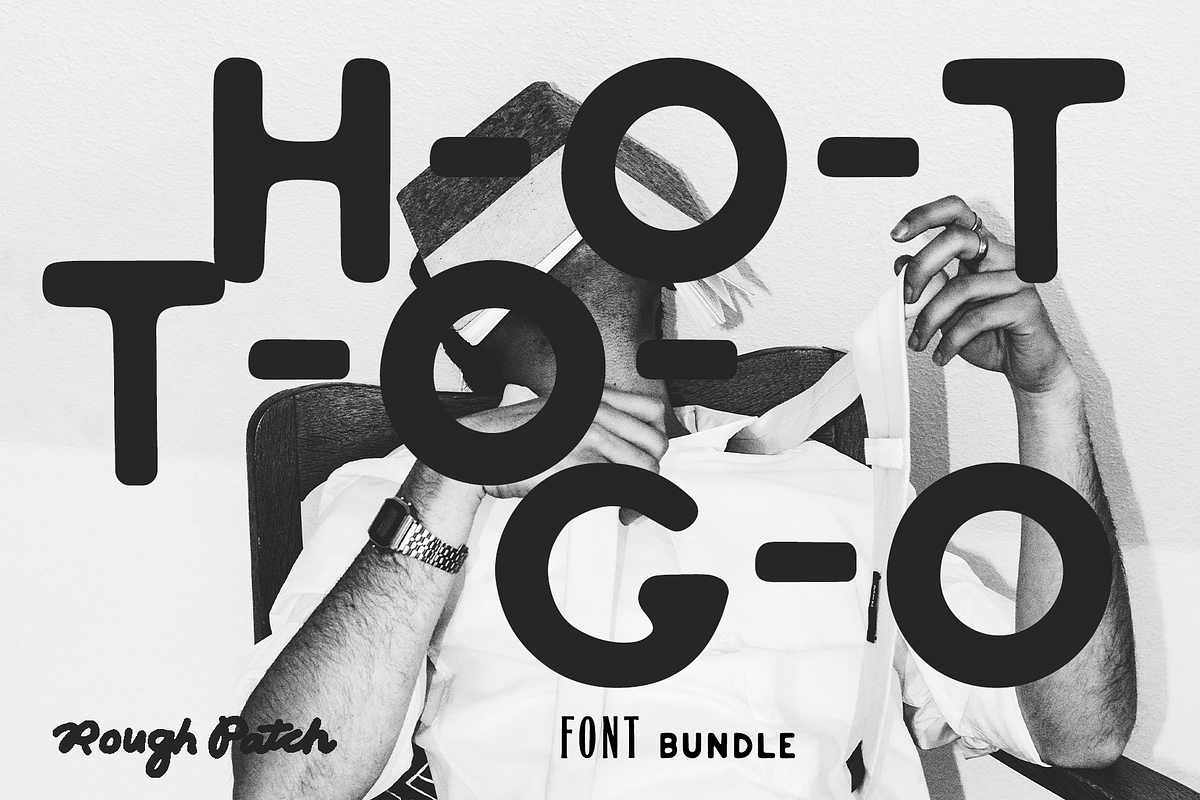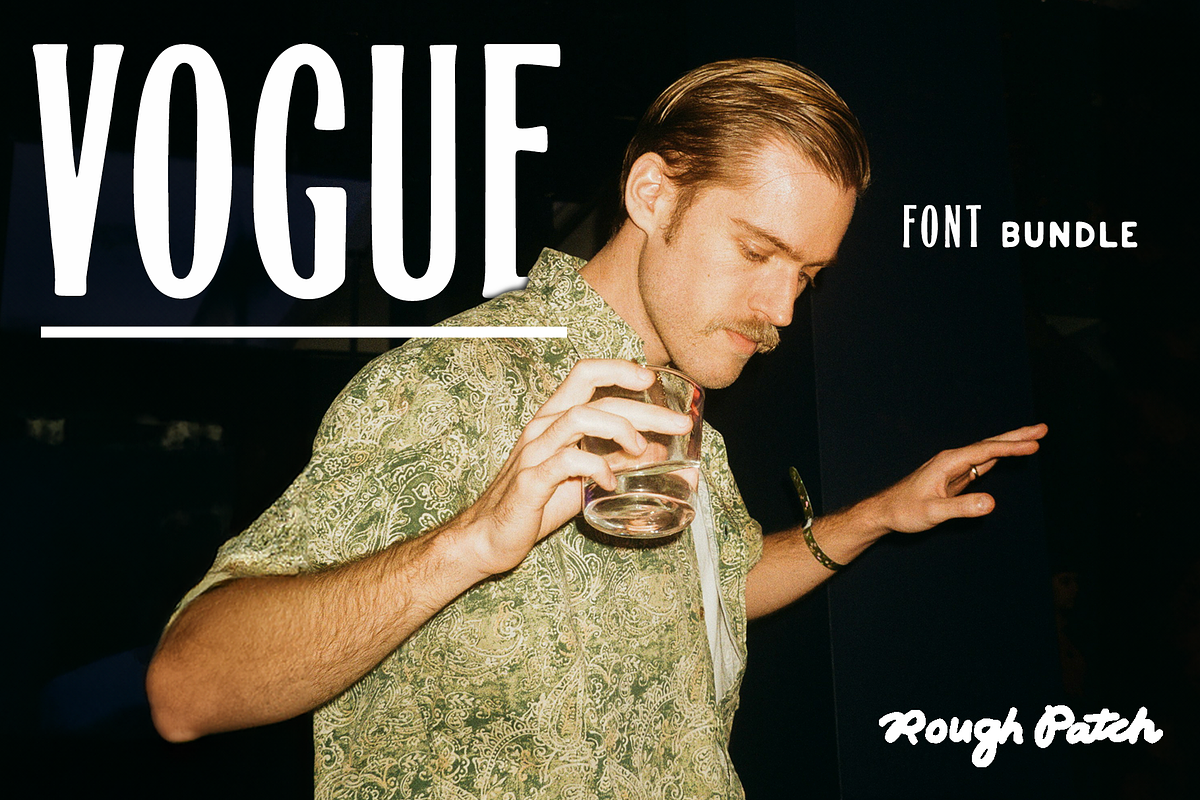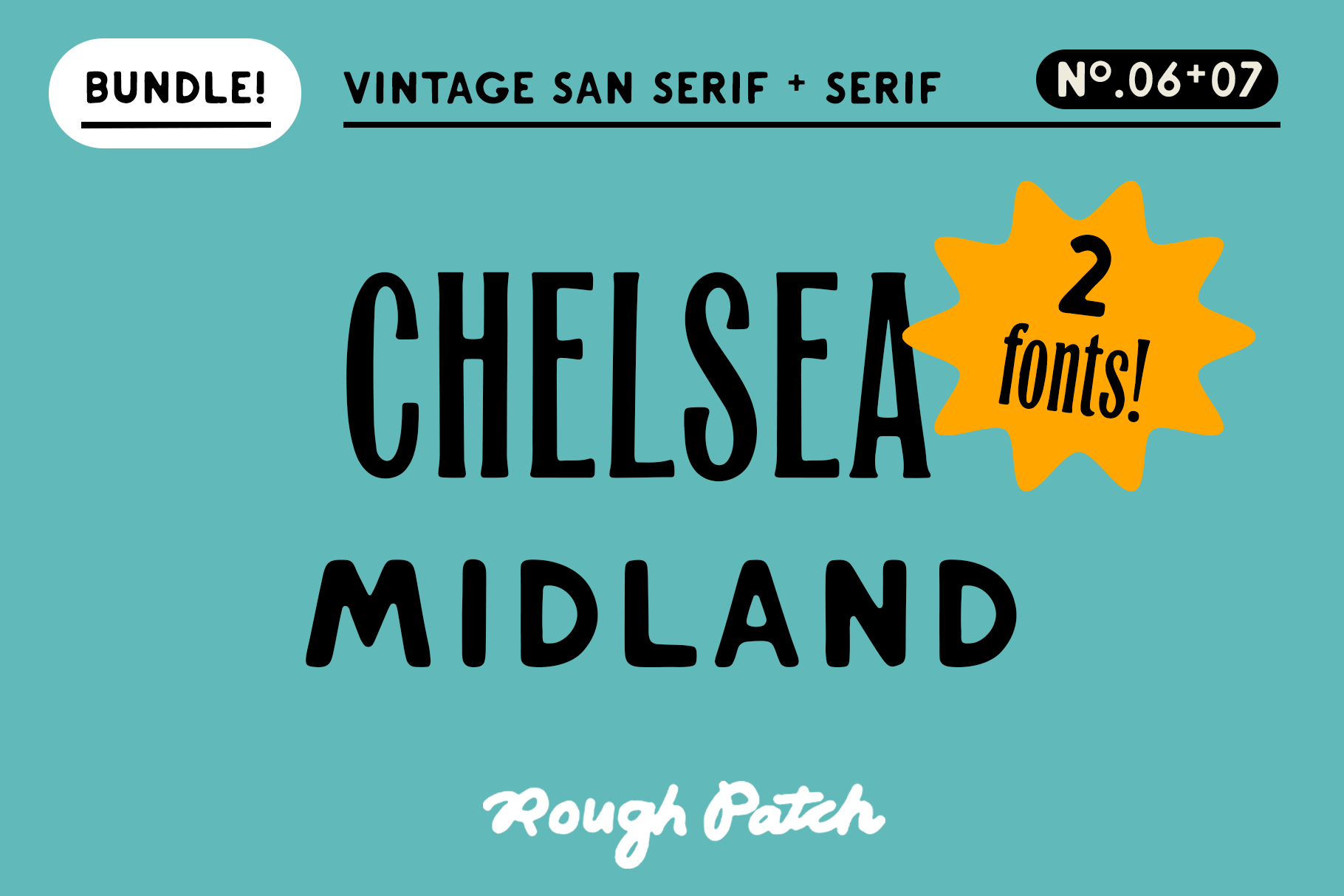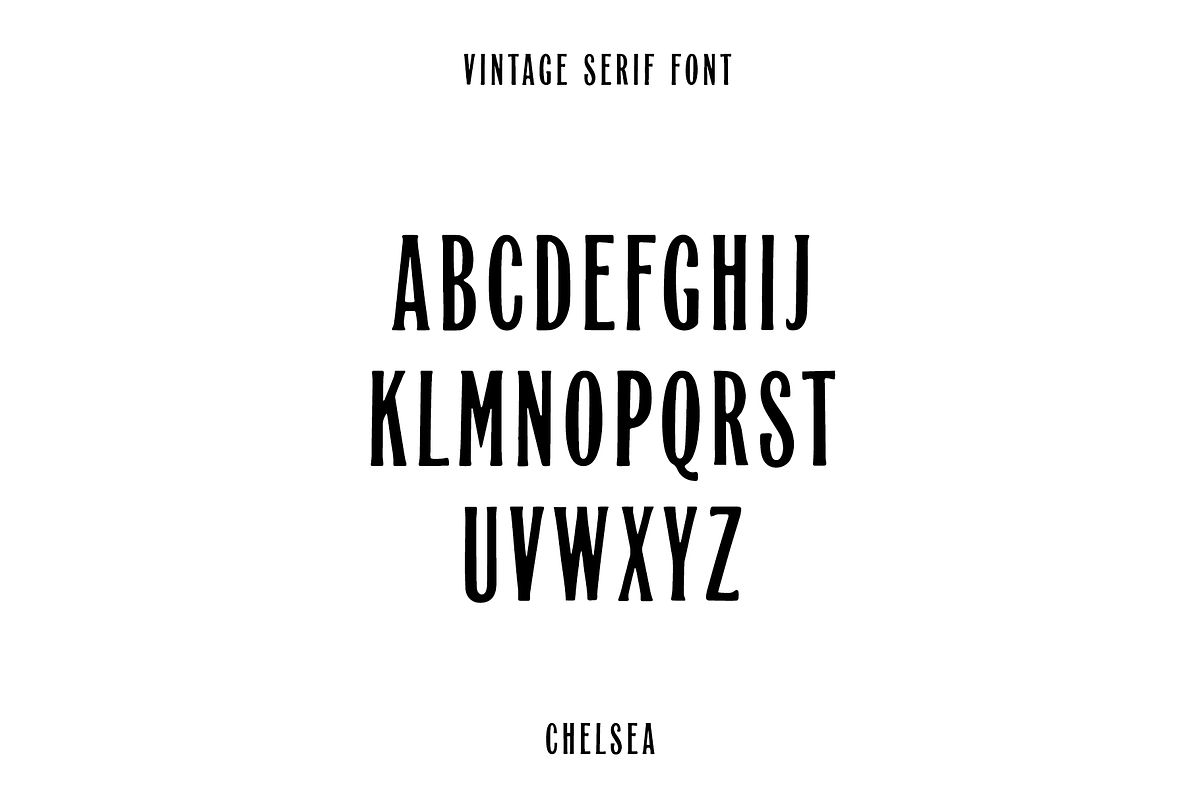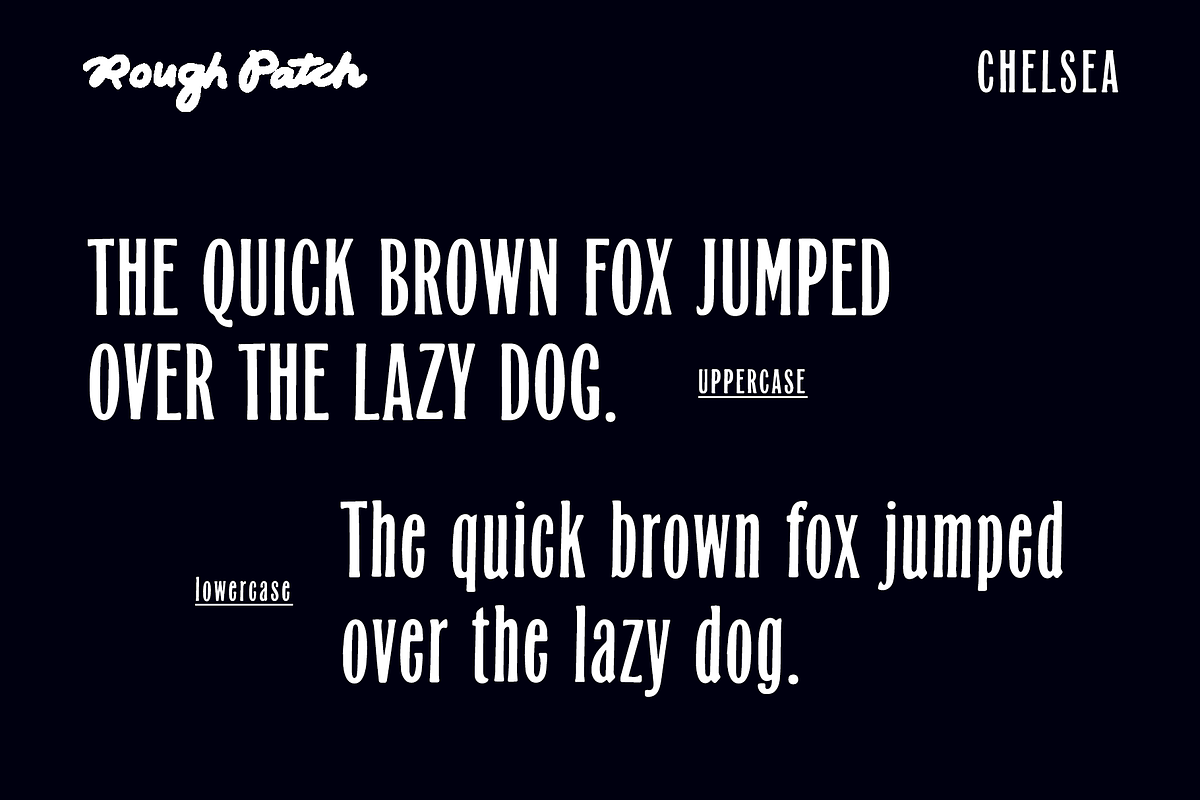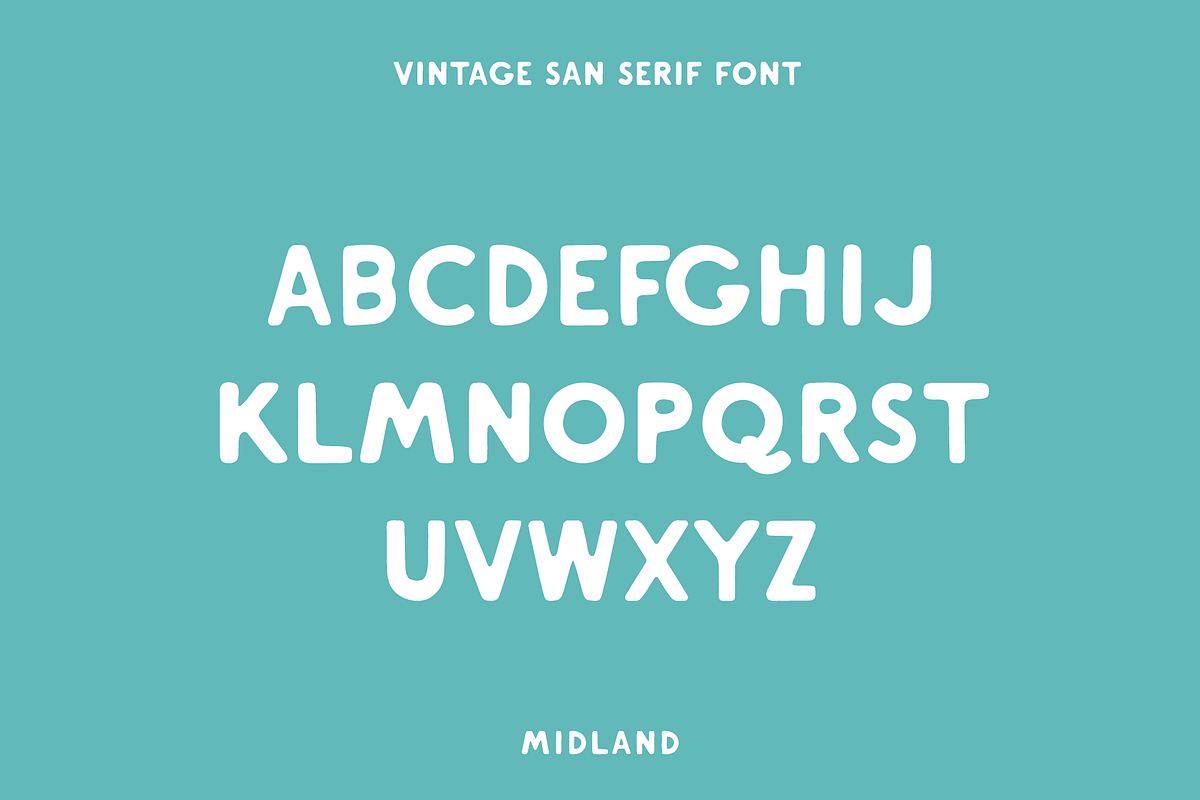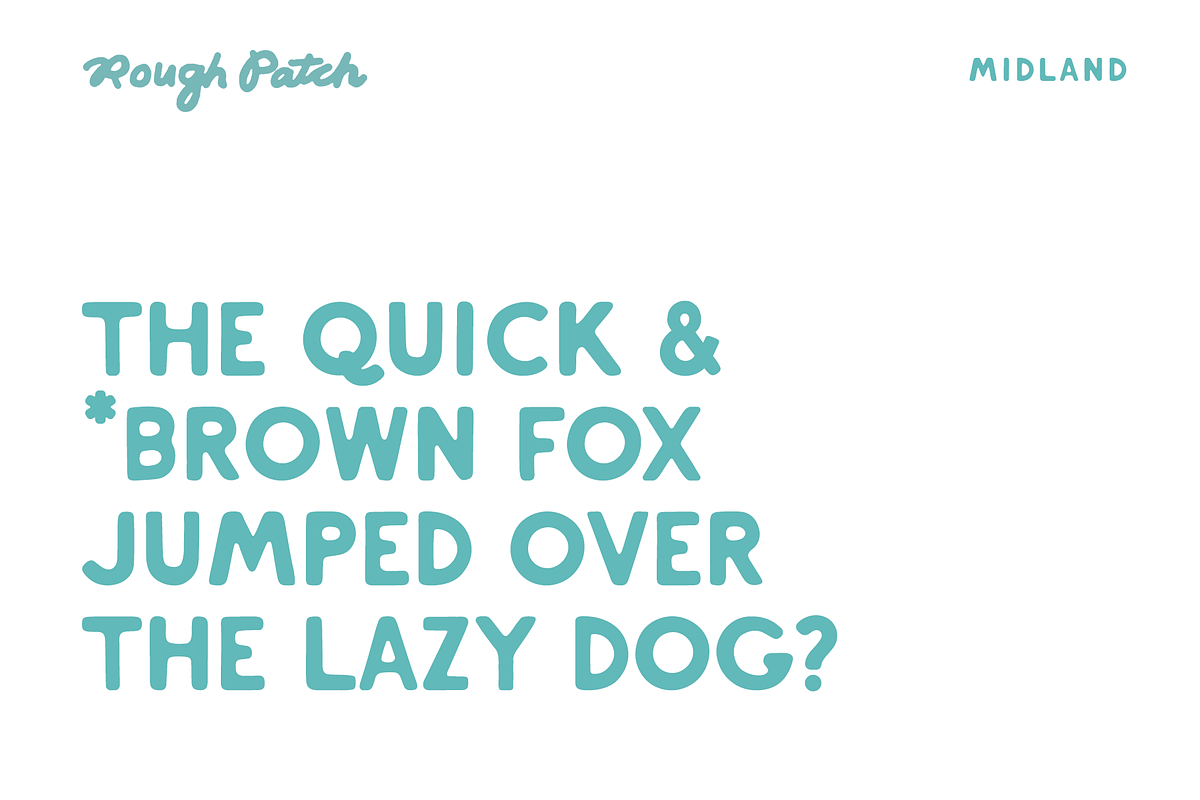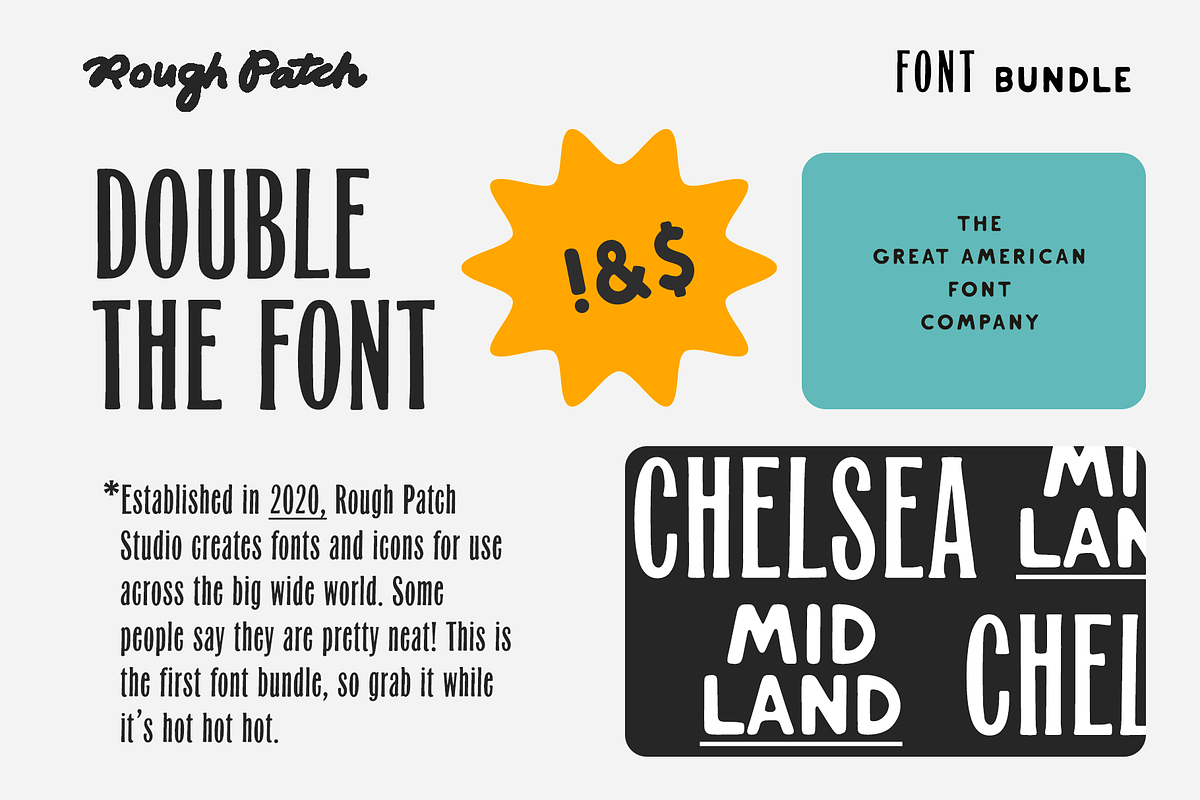
Vintage Font Bundle
The first Rough Patch Studio font bundle!
Midland A sans serif font with vintage inspiration - more specifically inspired by Midland Antiques in Indianapolis, Indiana. Midland has a vintage flare that can only be described as 'the bee's knees'. Includes A-Z, numbers, & primary symbols. Great for logos, signs, titles, packaging, and whatever other dreams you have.
Chelsea A serif font with vintage inspiration and a slight east coast snob persona. Includes A-Z, upper and lowercase, numbers, & primary symbols. Great for logos, signs, titles, and recently seen on some wedding invitations